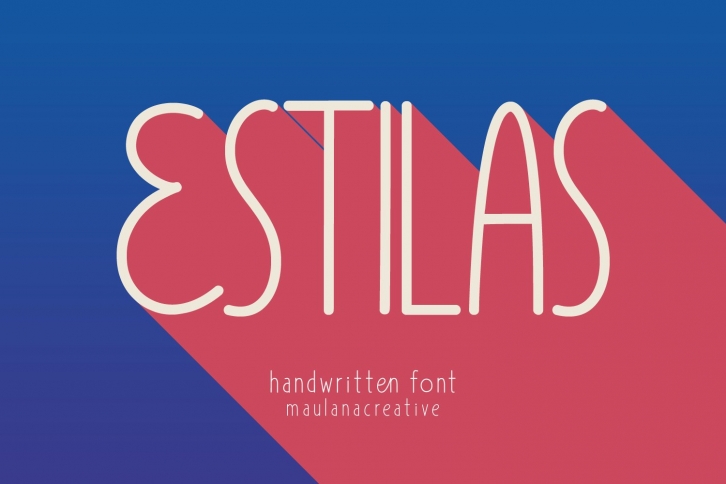
Estilas Handwritten is a gorgeous font that was realeased on December 25, 2020. The font can be used in many style contexts and design environments. Perfect for invitations, magazines, websites, logos, and more! It was designed by Maulana Creative and the file size is 1.45 MB. Thanks for checking out this font!